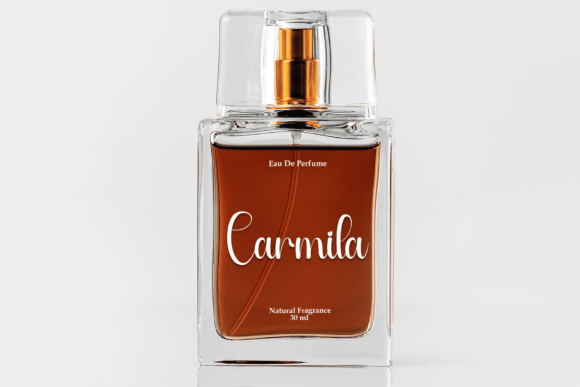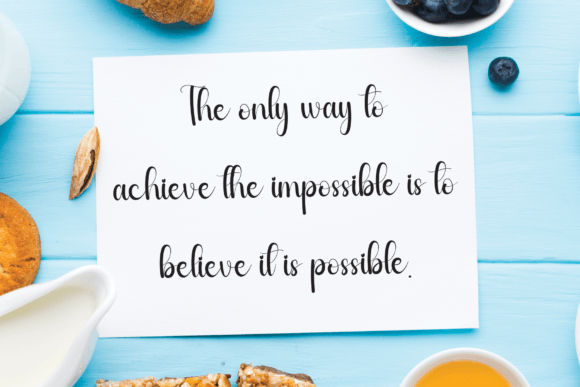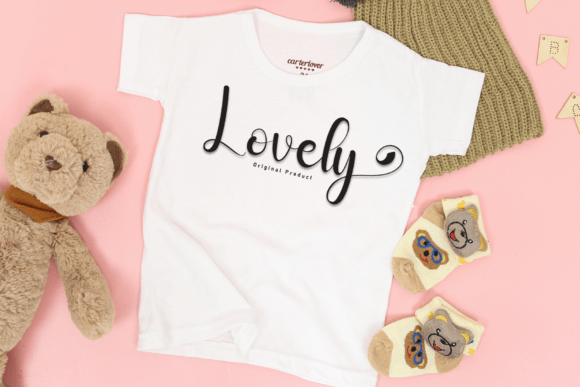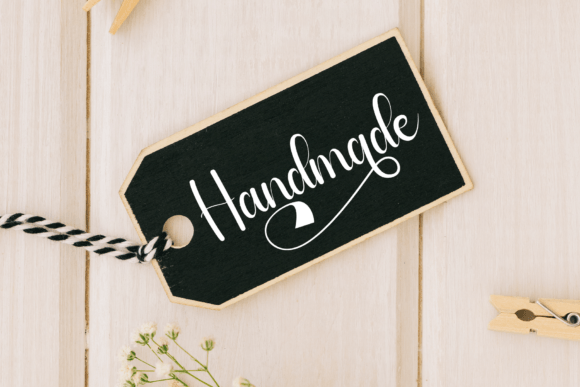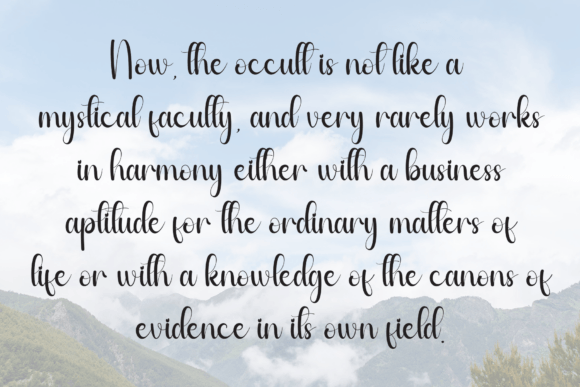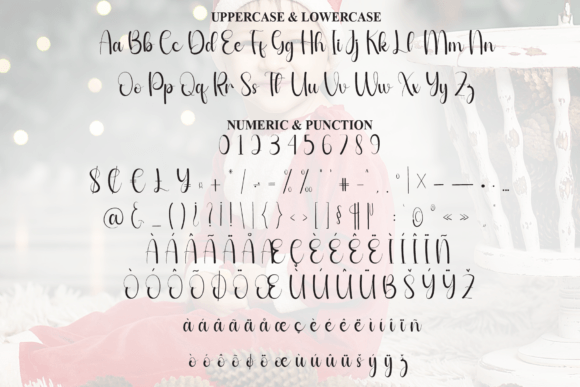
Introducing the Joy of the Season: Baby Christmas Font
As a designer, have you ever been tasked with creating a holiday-themed design, but struggled to capture the essence of festive fun? You’re not alone. We’ve all been there, staring at a blank page, wondering how to infuse our designs with the magic of the season. That’s where the Baby Christmas Font comes in – a charming, handwritten display font that’s sure to bring a smile to your face and a touch of whimsy to your designs.
This delightful font is perfect for designers looking to add a playful twist to their work. Whether you’re creating wedding invitations that exude warmth and love, or cards that spark smiles, the Baby Christmas Font is the perfect companion to help you bring your vision to life. With its lovable character and entertaining style, this font is sure to become a valuable addition to any designer’s toolkit.
Baby Christmas Font Key Features
- Font Family: Baby Christmas Font, a unique and festive script font.
- Unique Characteristics: Whimsical, hand-drawn design with intricate details and flourishes, perfect for adding a touch of magic to your designs.
- Characters: 250+ glyphs, including uppercase and lowercase letters, numbers, and special characters, providing a comprehensive set of characters for your designs.
Baby Christmas Font Review
Overall, I think the Baby Christmas Font is a cute and playful addition to any holiday design project. ✨ The font’s distressed and handwritten style gives it a charming, personal feel that’s perfect for cards, gift tags, and other festive designs. ✨ The font is also highly customizable, allowing you to adjust the size, color, and spacing to fit your specific needs.
Here are some specific things that I think work well in the Baby Christmas Font:
- ✨ Cute and playful design that’s perfect for holiday projects
- ✨ Highly customizable to fit your specific design needs
- ✨ Works well for both digital and print designs
- ⚠️ Limited font styles and variations (only 1 main font style)
- ⚠️ Some letters may be difficult to read in certain font sizes or colors
Overall, I think the Baby Christmas Font is a great addition to any designer’s holiday font collection. While it may have some limitations, its cute and playful design makes it a great choice for a variety of holiday projects.